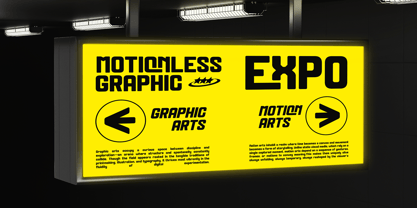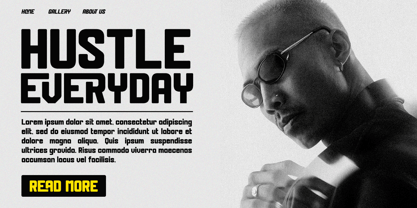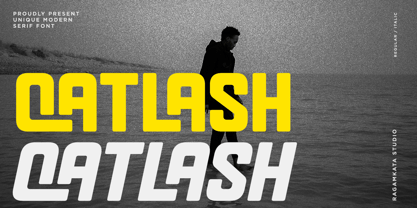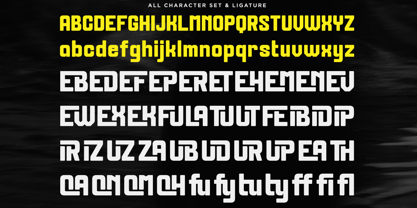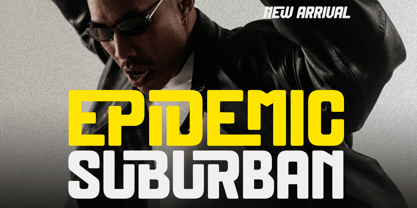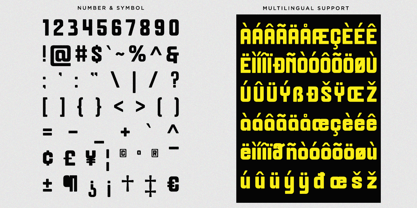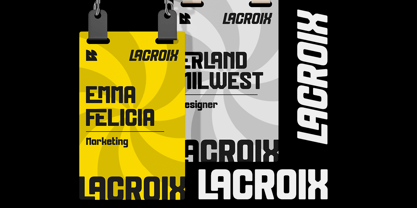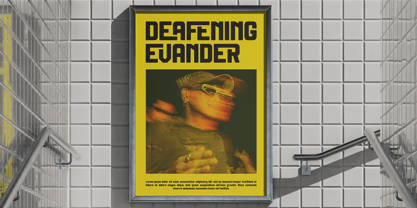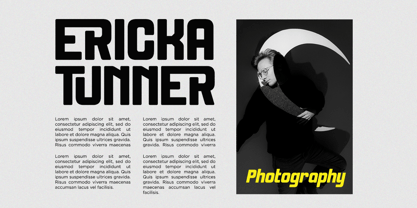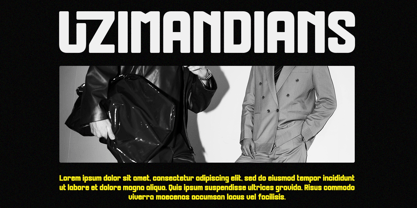
Oatlash
by RagamKata
The Oatlash Font Family was designed by Yogiswhara Dio Prakoso Riadi and published by RagamKata. Oatlash contains 2 styles and family package options. More about this family
Oatlash is a bold and stylish modern serif display font that seamlessly combines clean geometric design with a unique contemporary twist. Its strong presence, rounded cuts, and sleek futuristic personality ensure that your typography captures attention instantly. Ideal for a variety of applications, including branding and logo design, social media, titles, headlines, editorial content, magazines, packaging, products, and websites, Oatlash enhances visual communication with its distinctive flair. Thank You, Have a good work! Ragamkata
Designers: Yogiswhara Dio Prakoso Riadi
Foundry: RagamKata